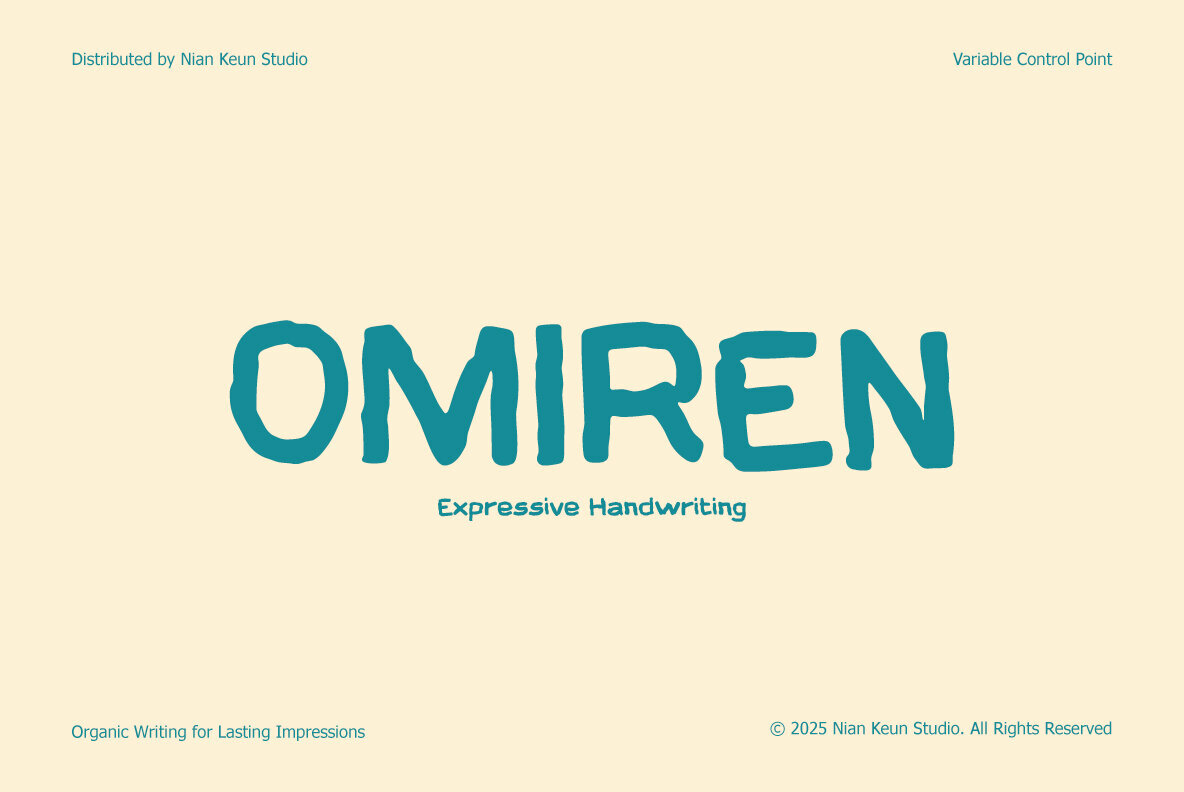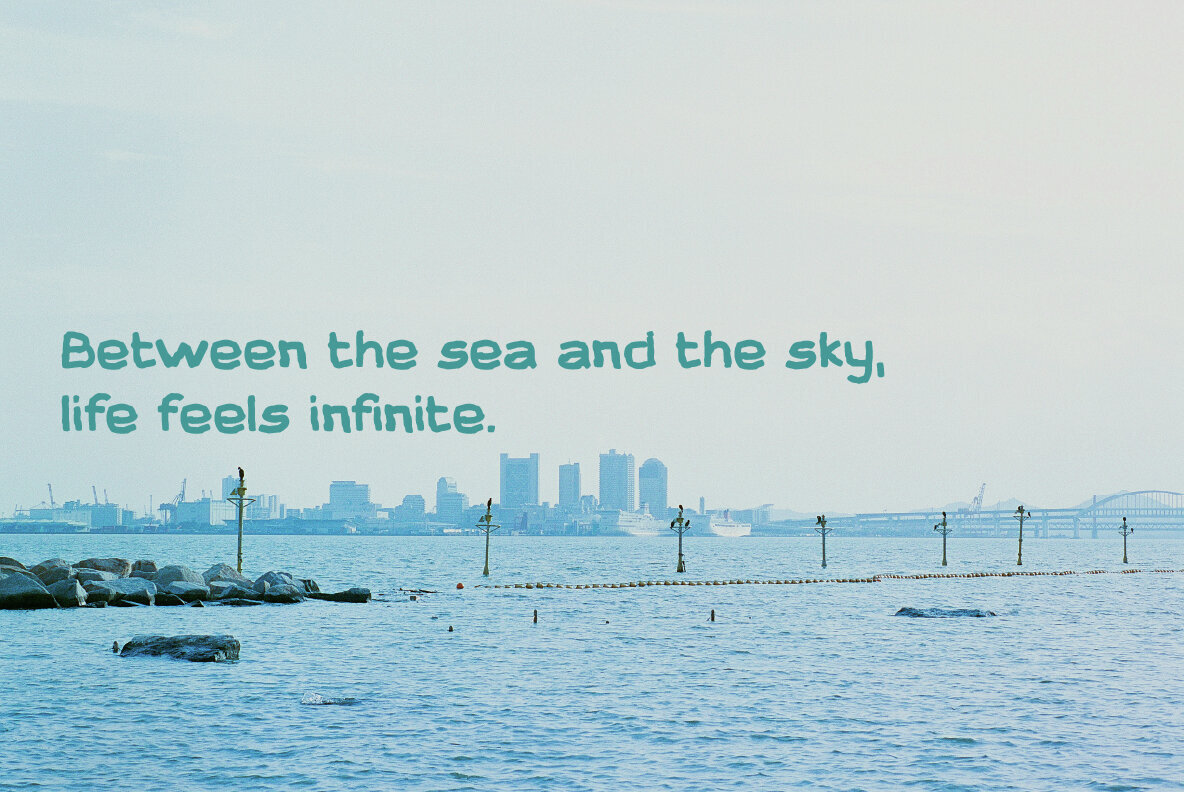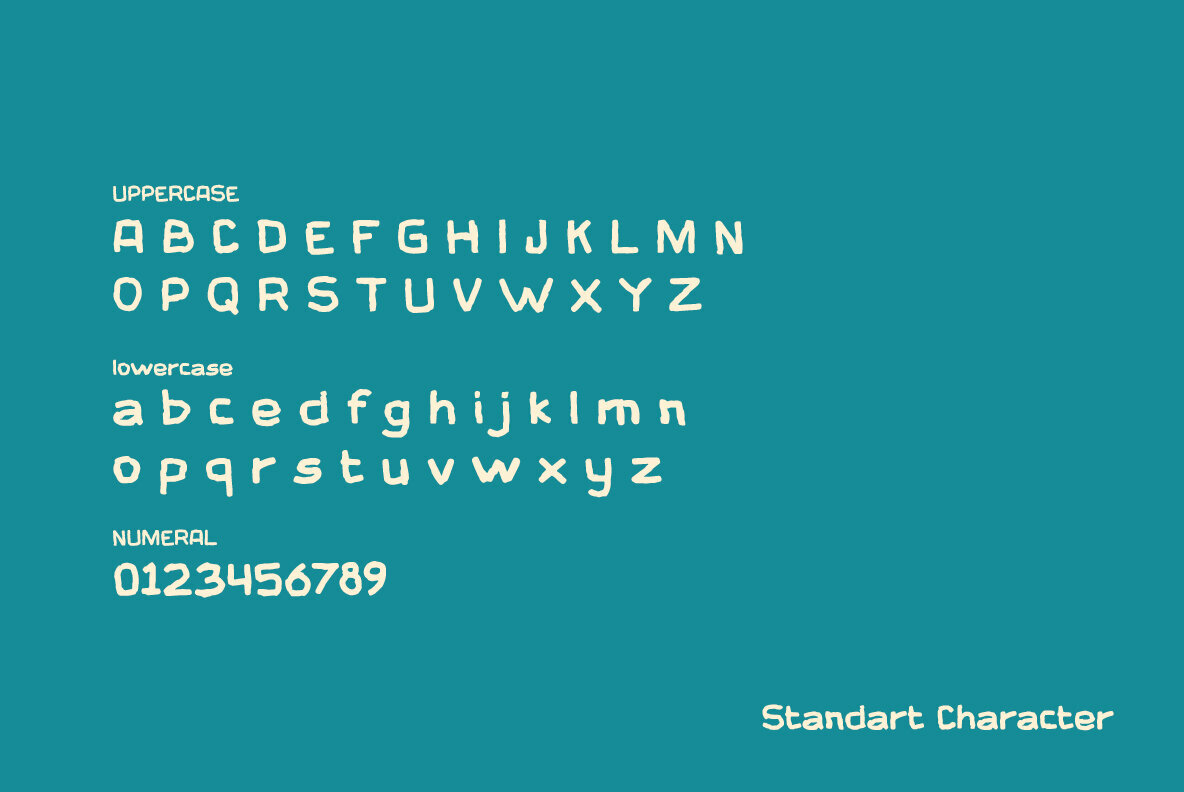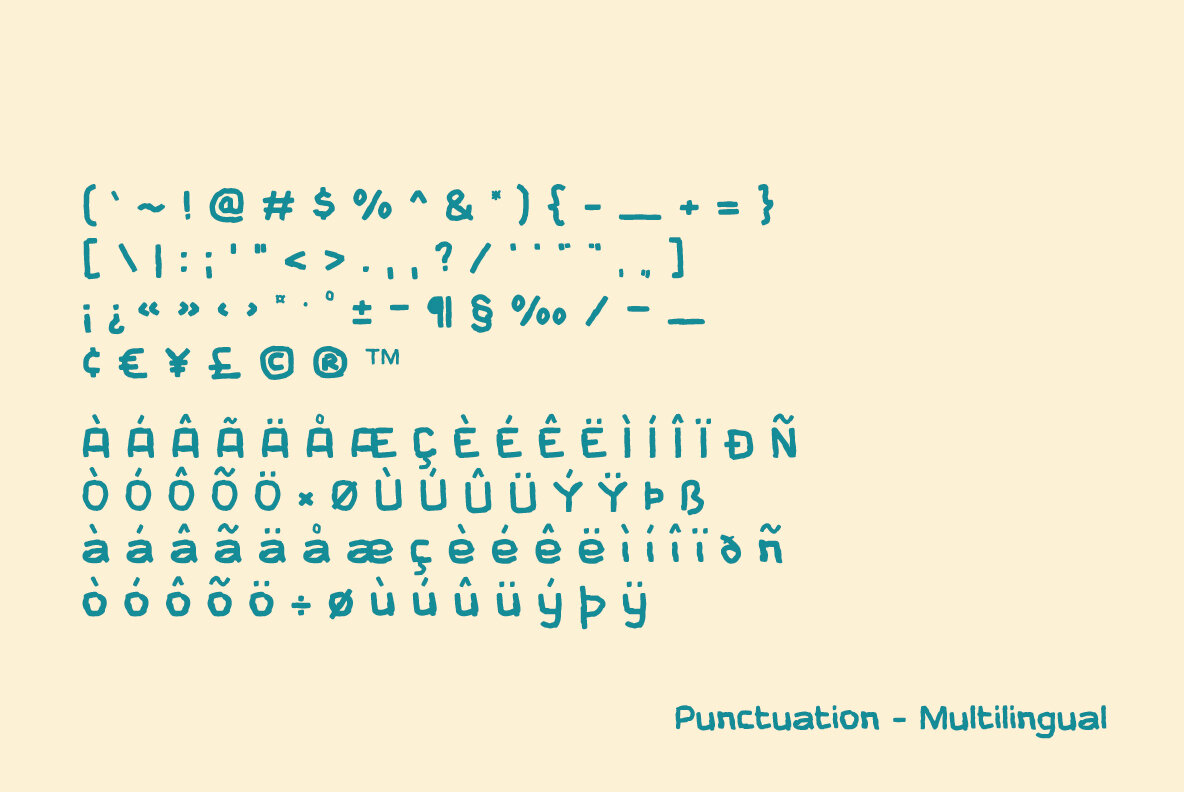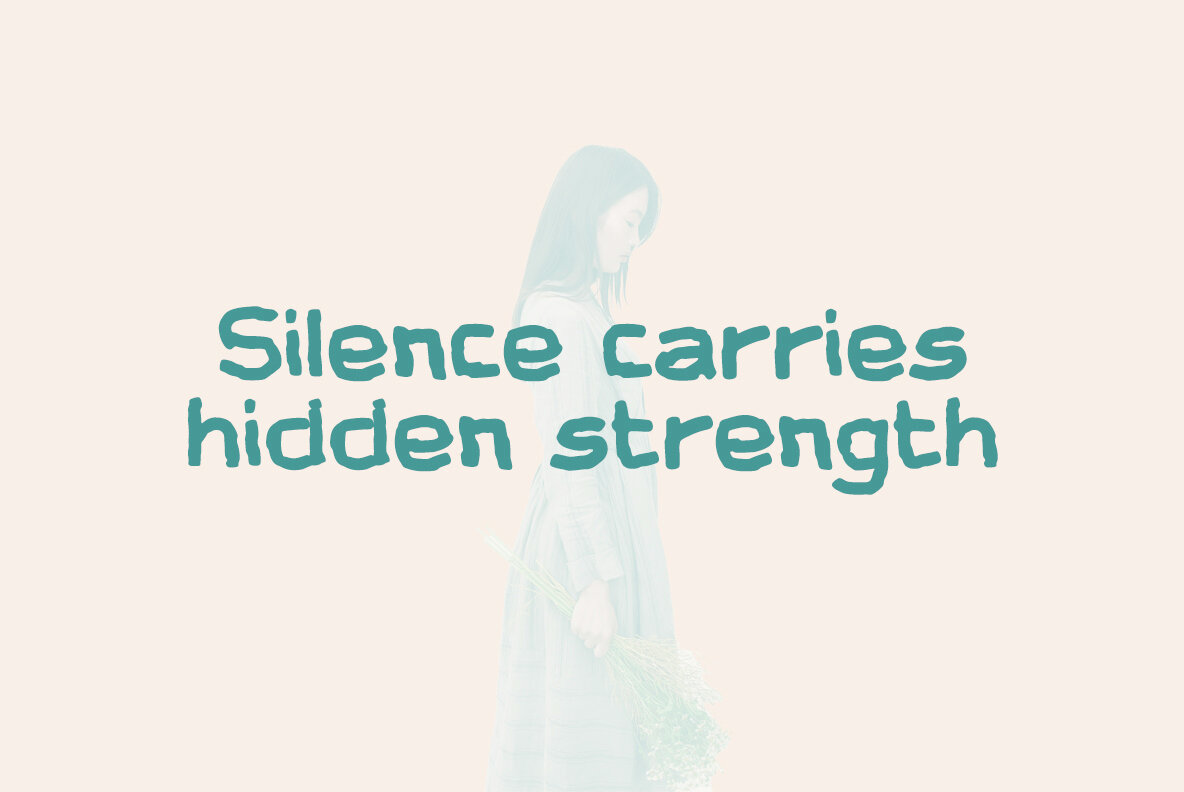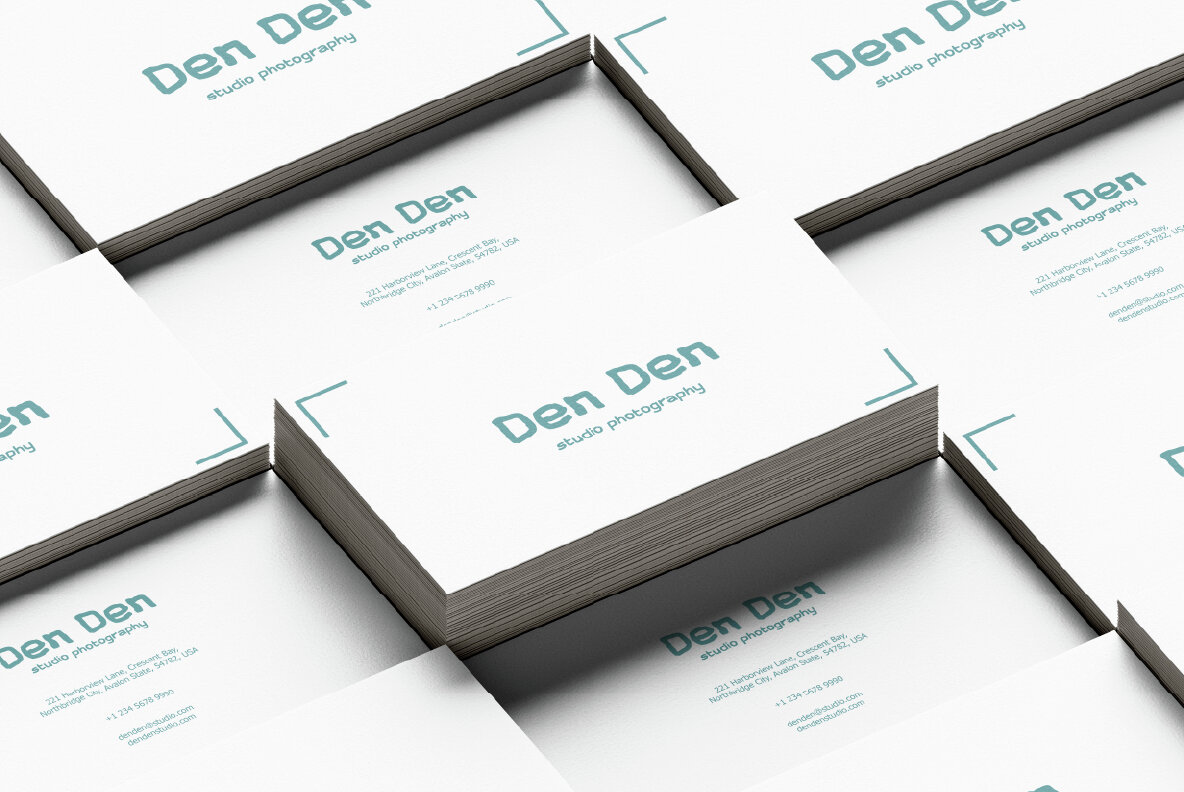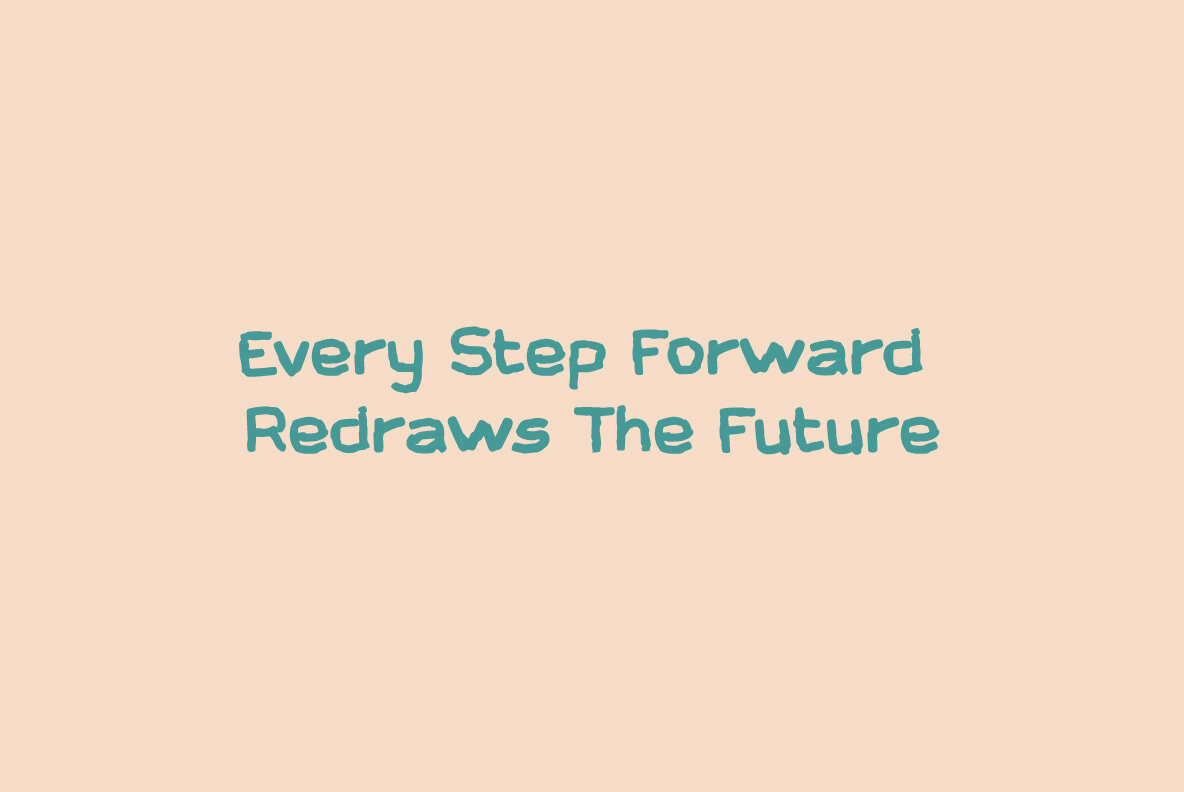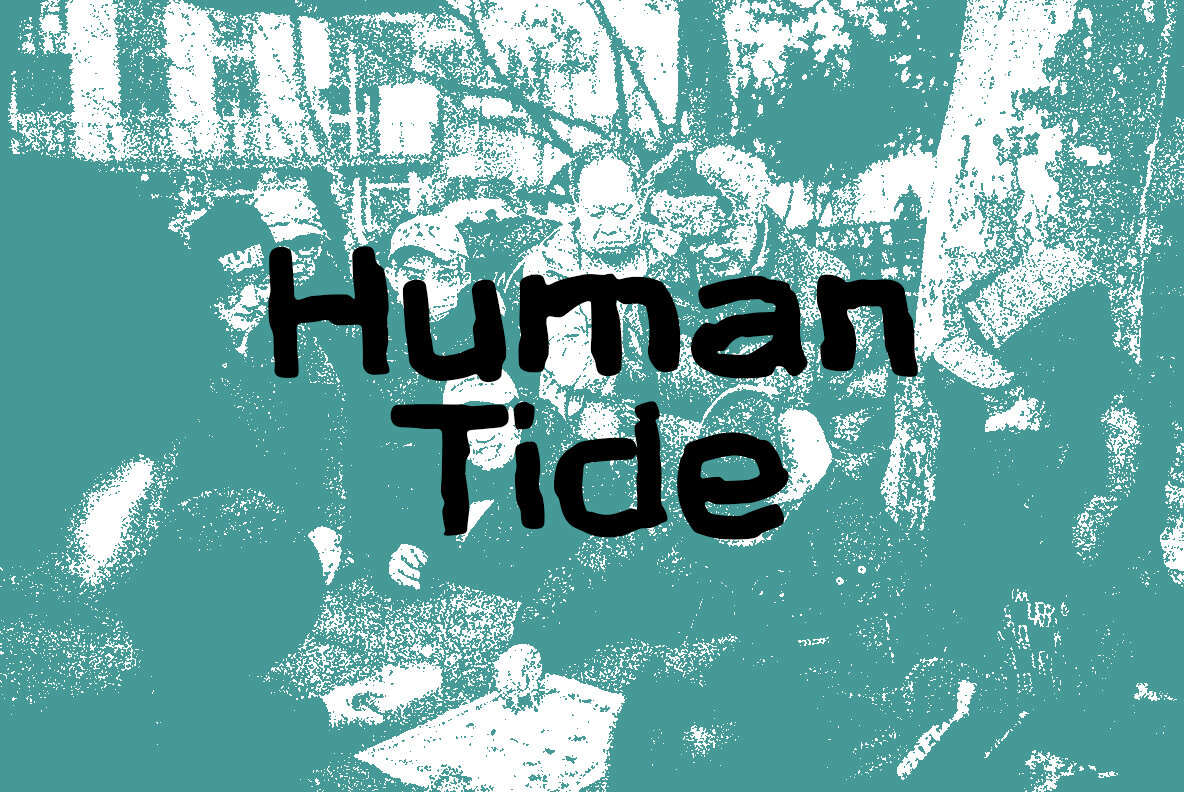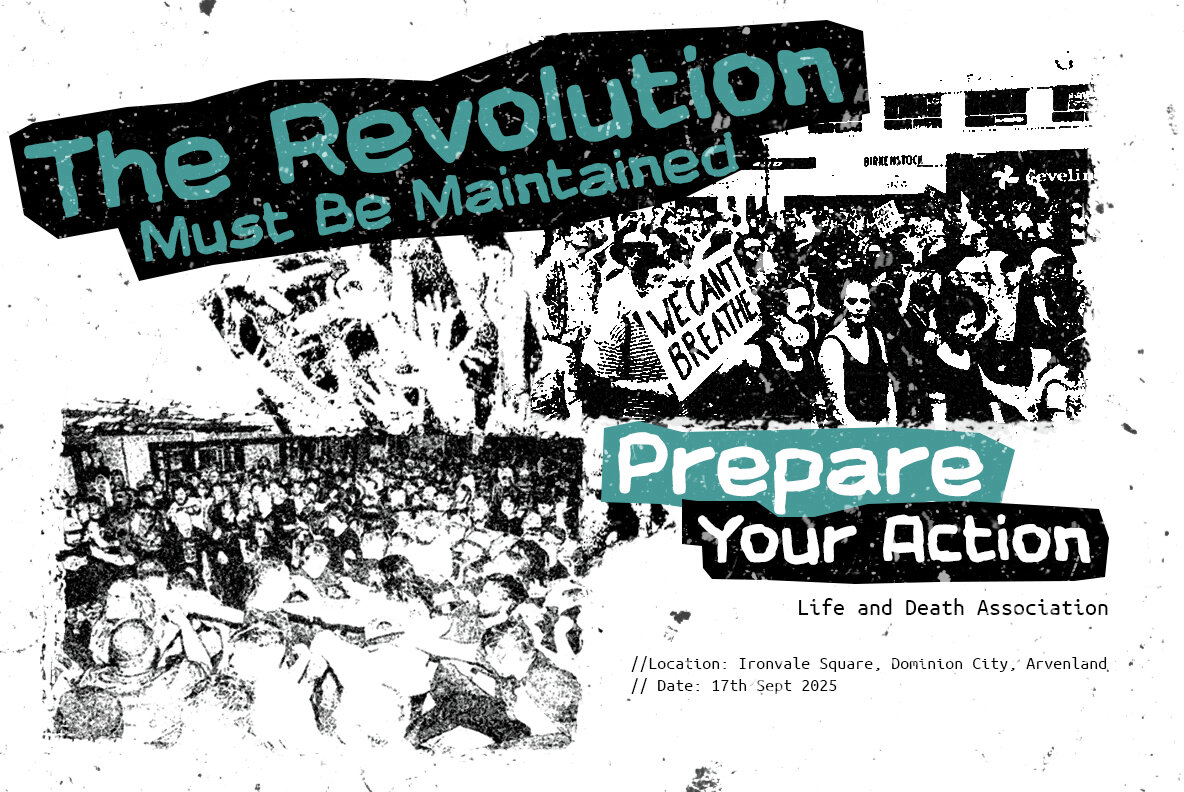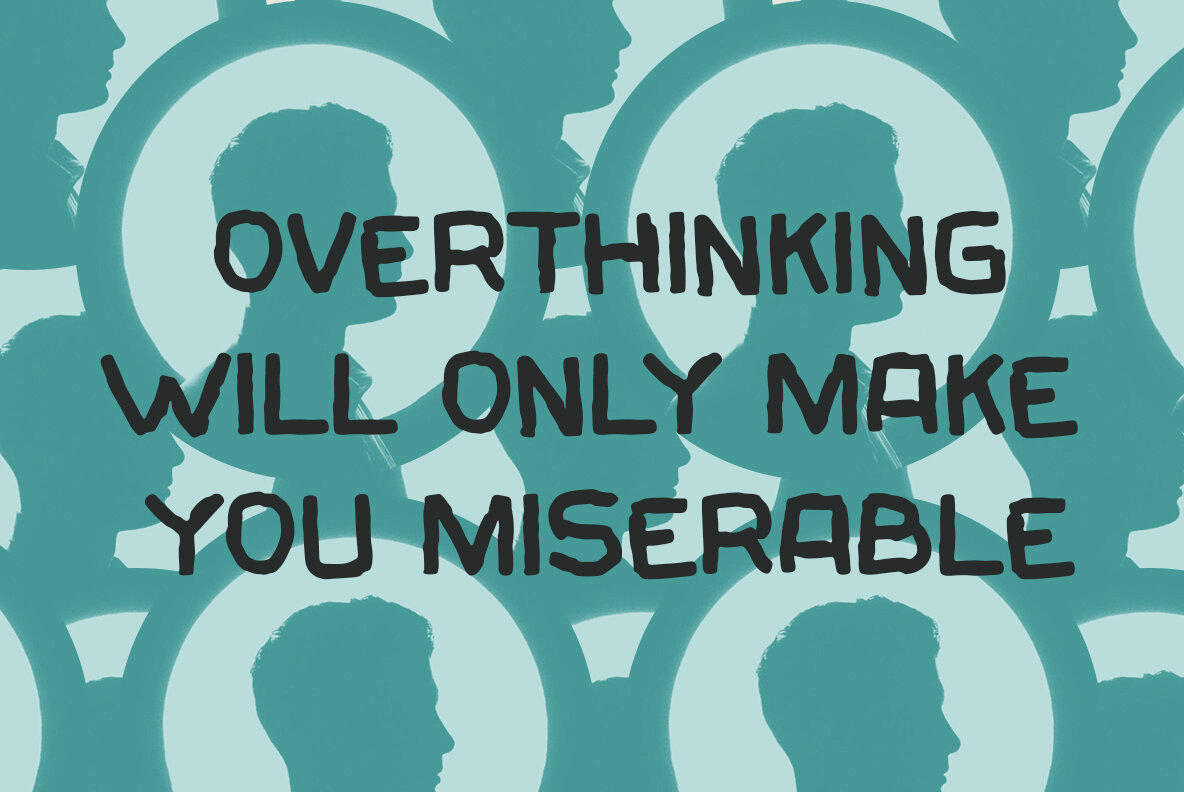
Omiren Font
Omiren
Omiren is an expressive handwritten typeface designed to bring a natural, human touch to your creative projects. With its irregular strokes and playful flow, Omire captures the essence of authentic handwriting—warm, approachable, and full of personality. Built with a Variable Control Point system, Omiren allows flexibility in shaping proportions, making it highly adaptable for different design needs without losing its handcrafted spirit. Perfect for designers who want to inject life and authenticity into their work. Font Features - Hand-drawn, organic letterforms Perfect For - Children’s book titles
- Playful yet balanced flow
- Excellent readability in display sizes
- Variable control point for flexible adjustments
- Unique personality for expressive designs
- Creative branding
- Handmade product packaging
- Posters & playful headlines
- Social media graphics with personality